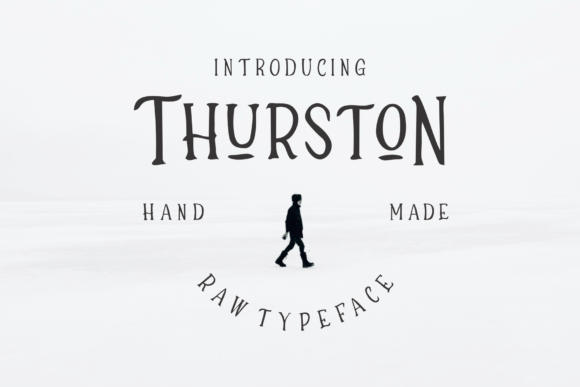
Step into the world of typography with Thurston Font, a serif masterpiece that exudes vintage charm and raw elegance. Crafted by the skilled hands of takoliko, this font family is a visual symphony that blends the beauty of tradition with a modern twist.
Thurston's captivating aura is a testament to its versatility, seamlessly adapting to a multitude of creative endeavors. Whether you're a passionate designer seeking to elevate your projects or a creative soul yearning for a touch of nostalgia, Thurston Font is your steadfast companion.
Immerse yourself in the allure of vintage aesthetics, where Thurston's carefully crafted glyphs evoke a sense of timelessness. Its delicate curves and refined serifs add a touch of sophistication to any design, inviting your audience to embark on a journey through the annals of history.
With Thurston Font as your creative ally, you'll effortlessly forge designs that resonate with authenticity and character. Its raw, vintage appearance adds depth and intrigue to logos, posters, branding, and packaging, captivating your audience with its timeless appeal.
Unleash the power of Thurston Font to transform your creative visions into tangible masterpieces. Its versatility shines through in both digital and print applications, allowing you to seamlessly integrate it into your design workflow. From eye-catching headlines that command attention to elegant body text that flows with grace, Thurston Font elevates every element of your design.